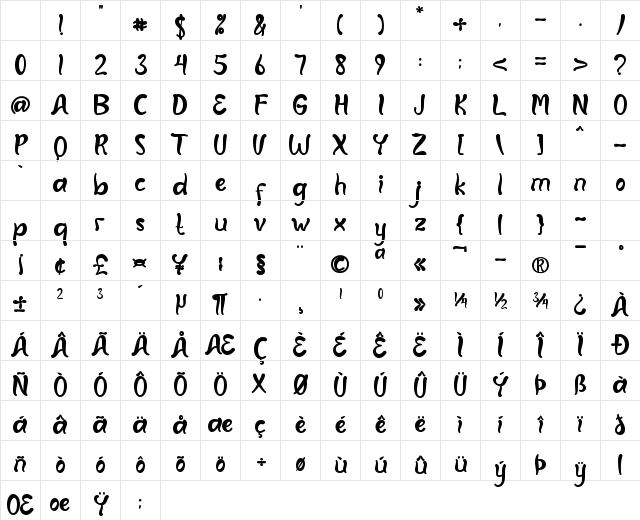
Complete Merry Deer Regular glyph index. Displaying only characters natively supported by Merry Deer Regular font.
Merry Deer is a composed and adaptable typeface that performs quietly and consistently across a wide range of design contexts.